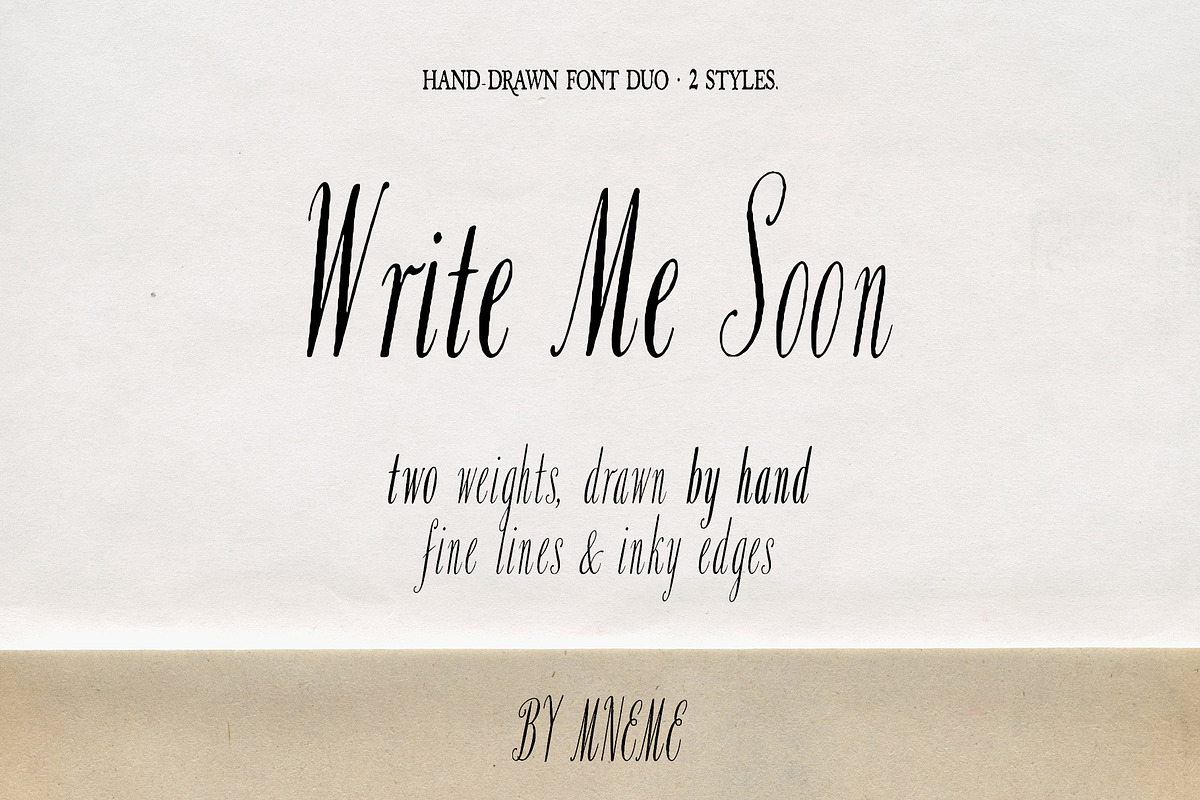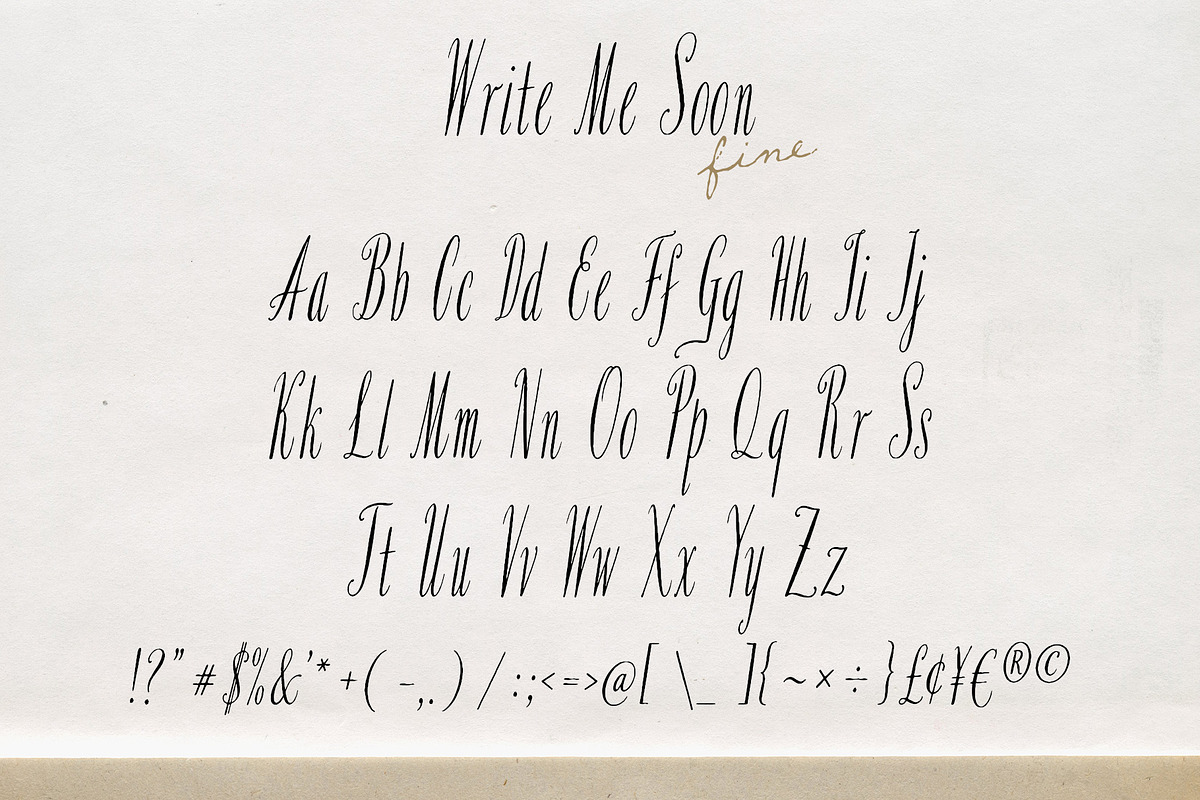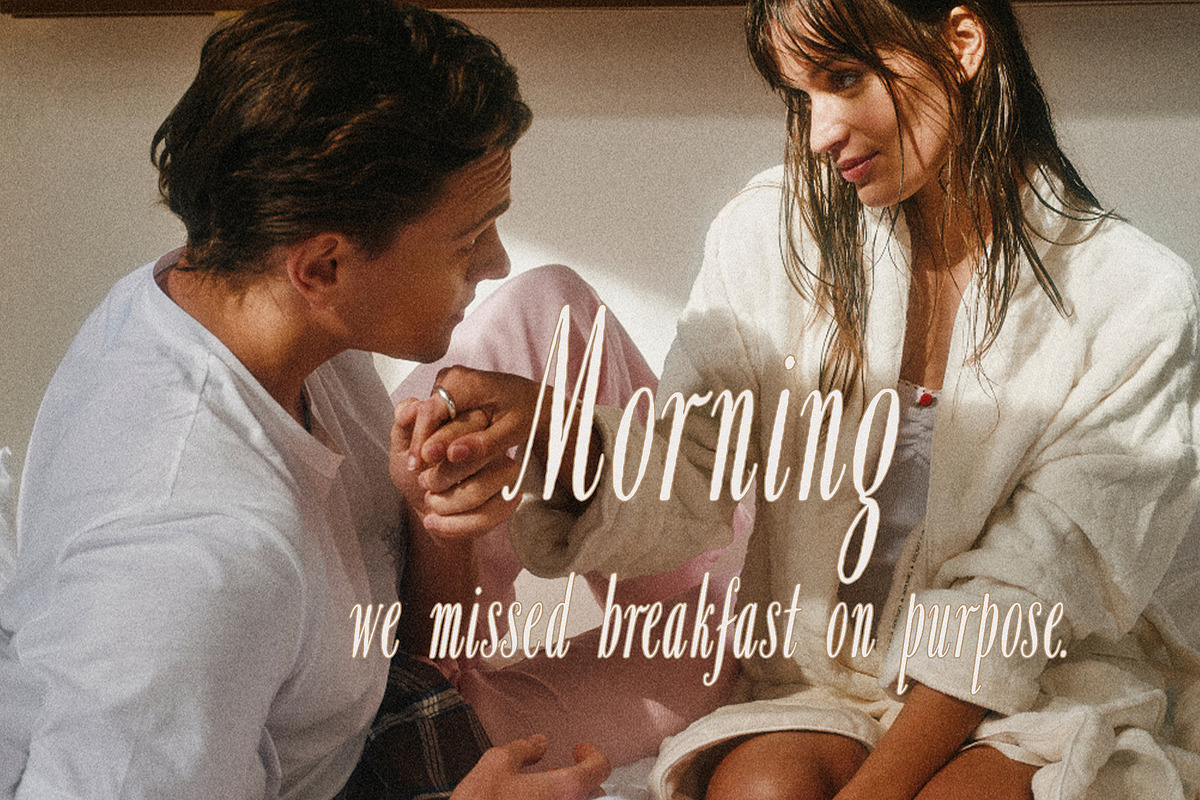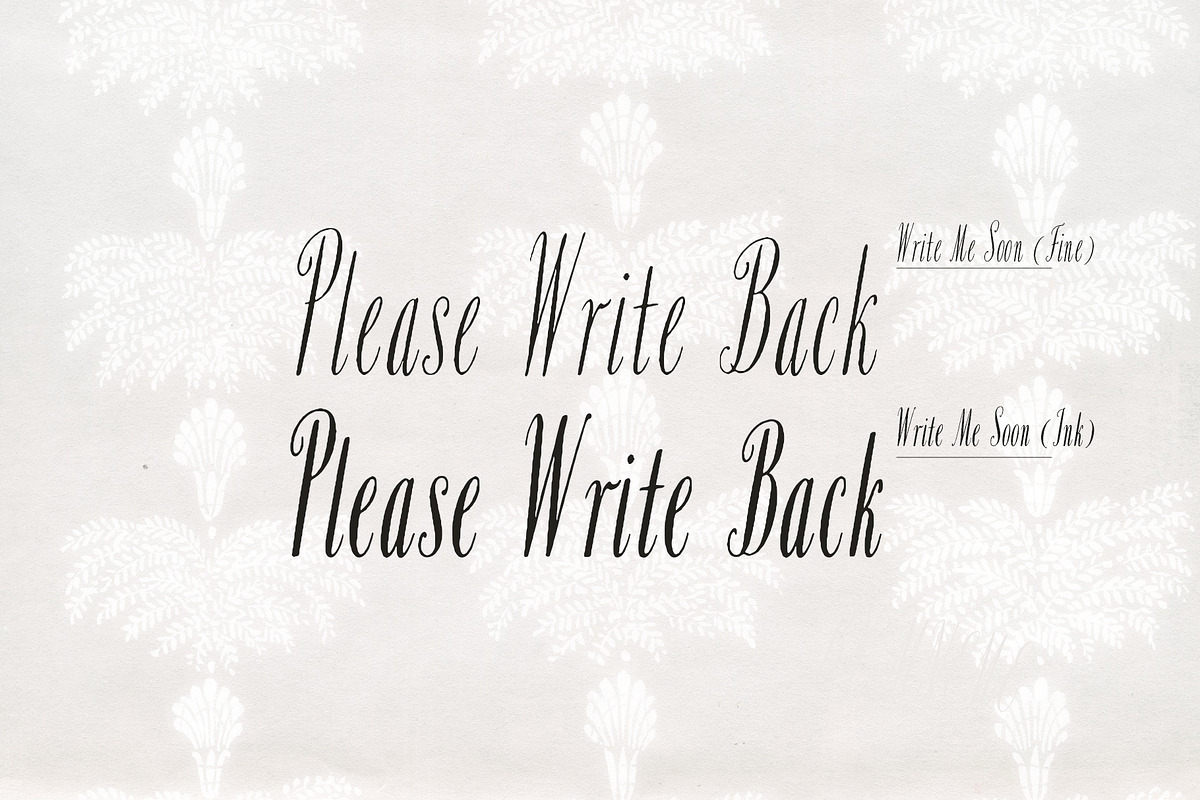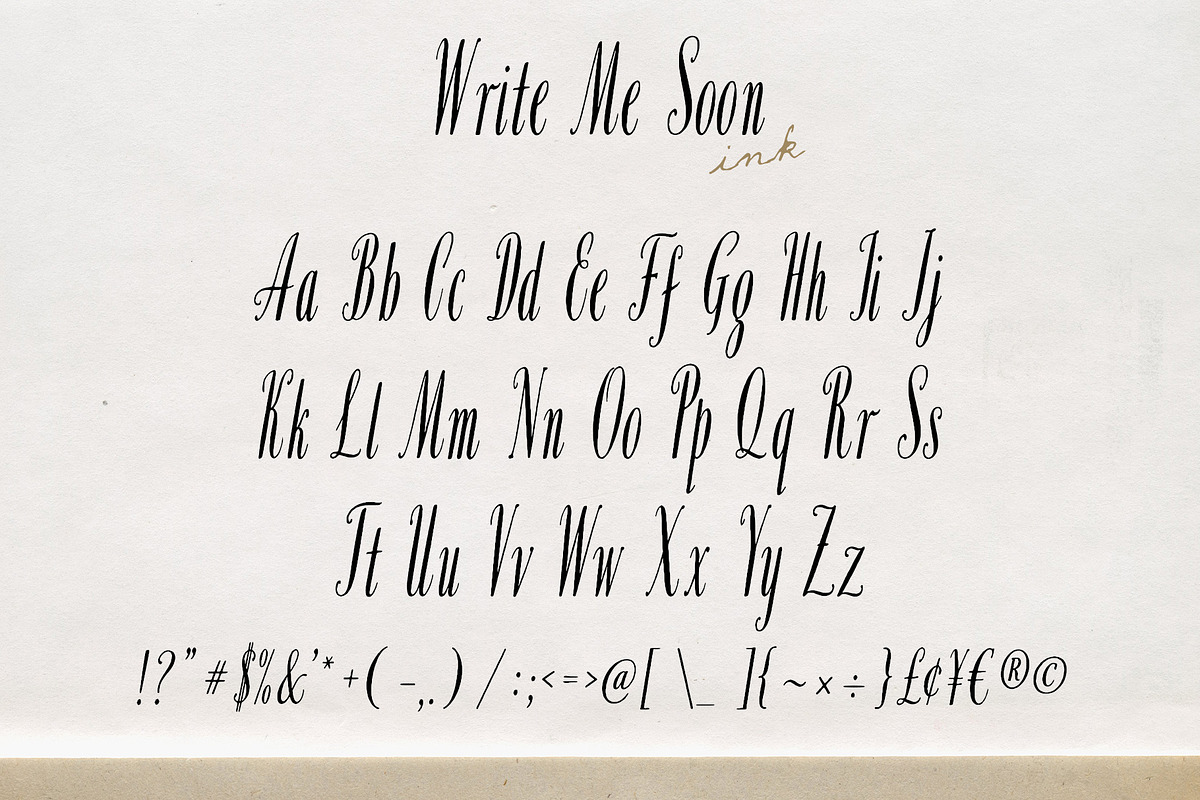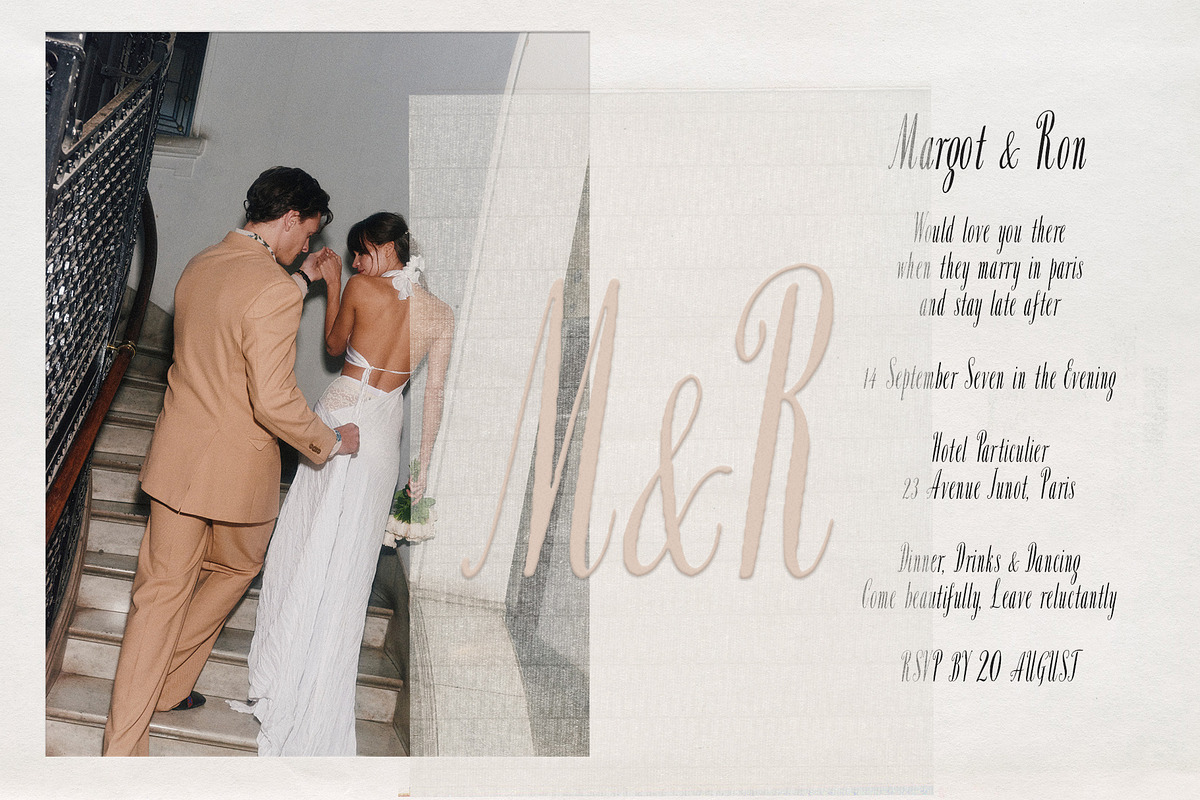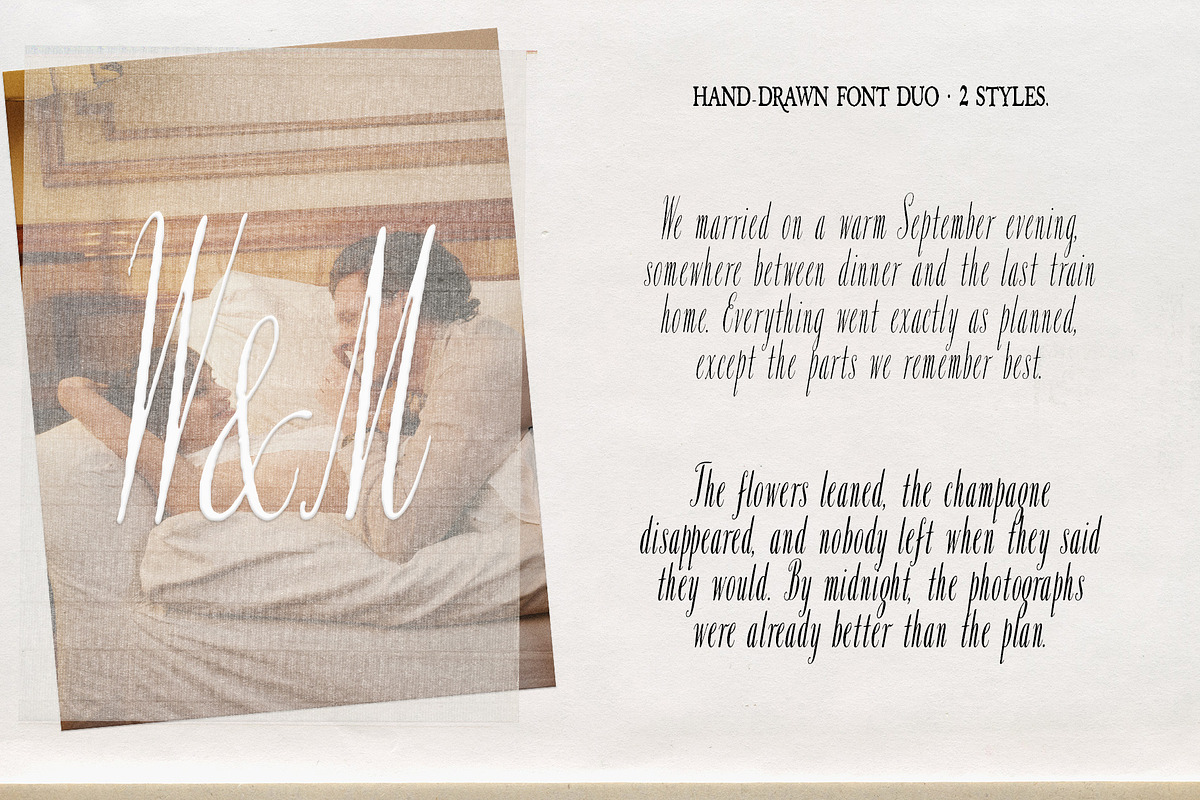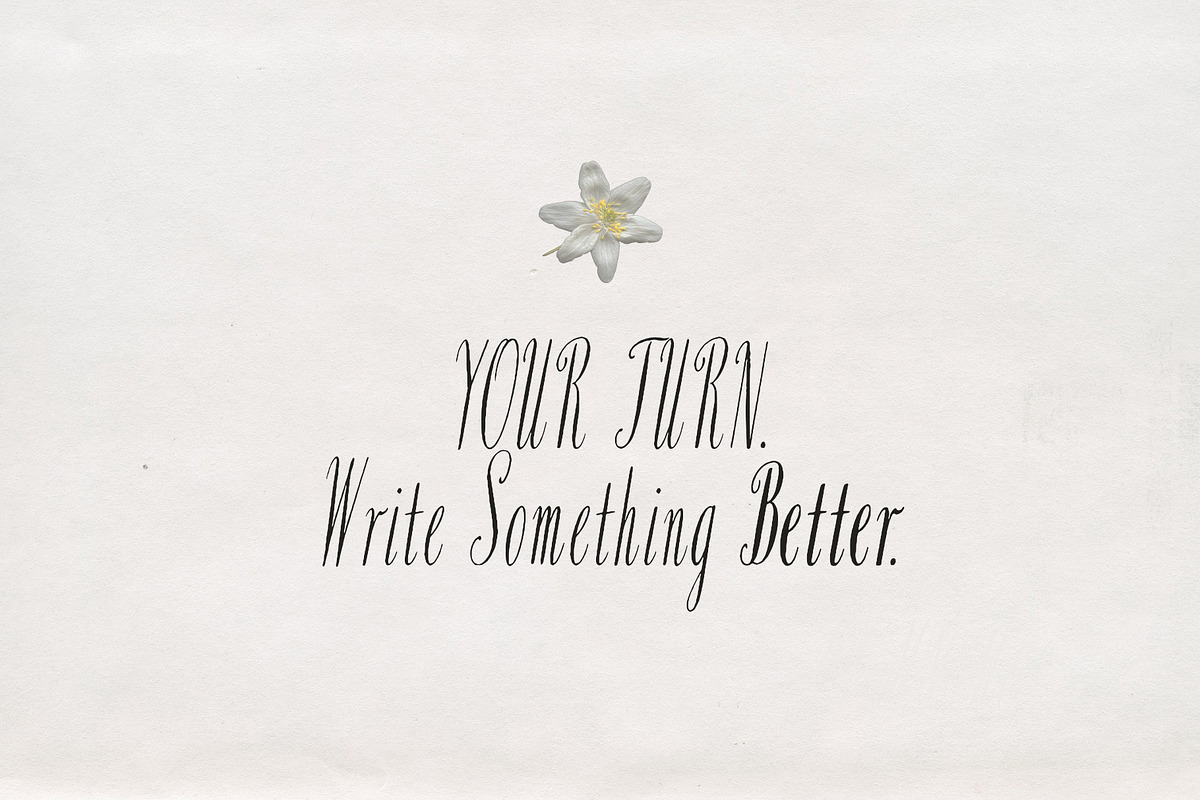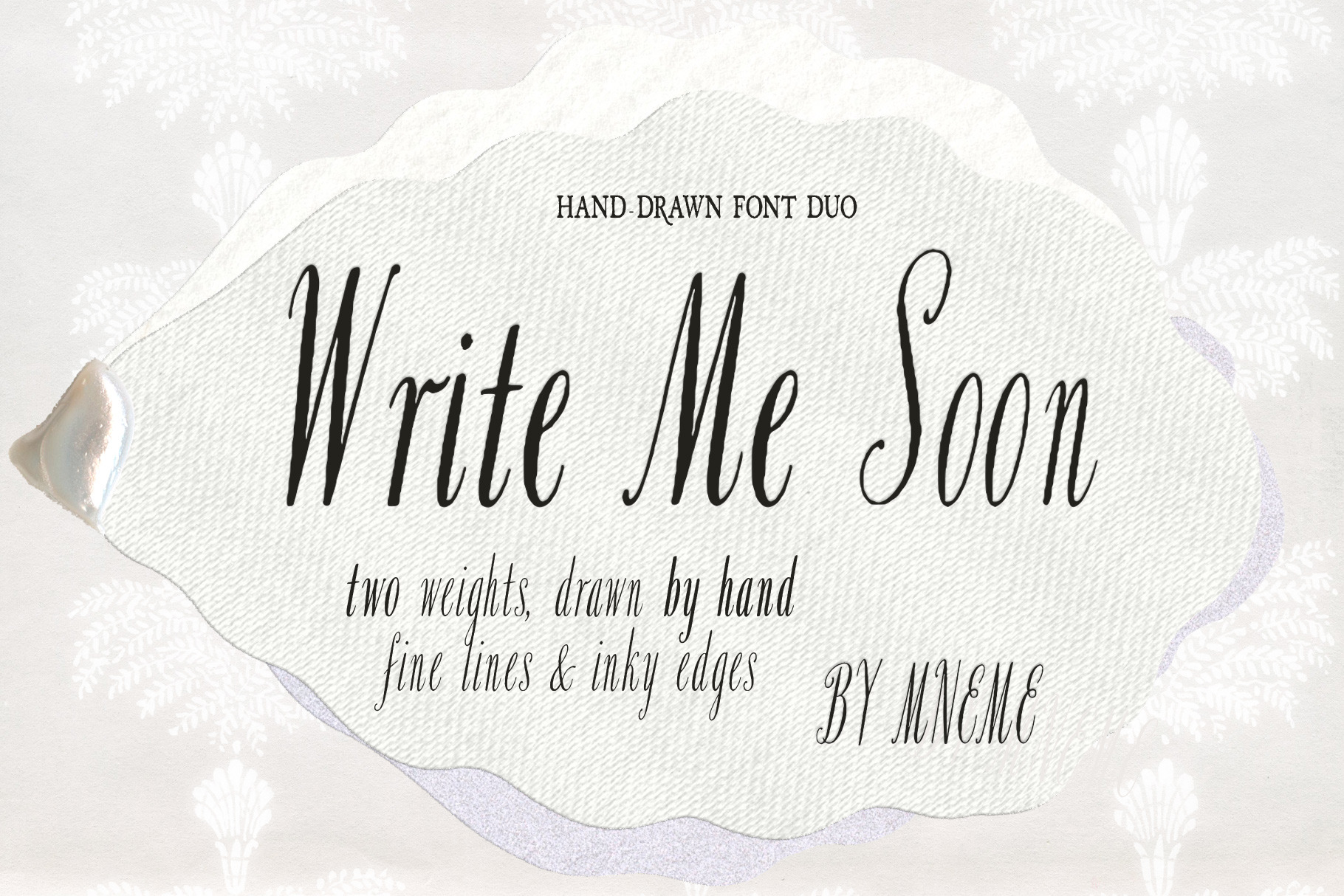
Write Me Soon Handwritten Font Duo
Write Me Soon is a tall, narrow handwritten font duo with softly irregular lines and tactile inked edges.
The two coordinated styles share the same letterforms but create distinctly different moods. Fine feels delicate, quiet and editorial, while Ink adds stronger contrast and a more expressive handwritten finish. Use them separately or combine both weights within one design.